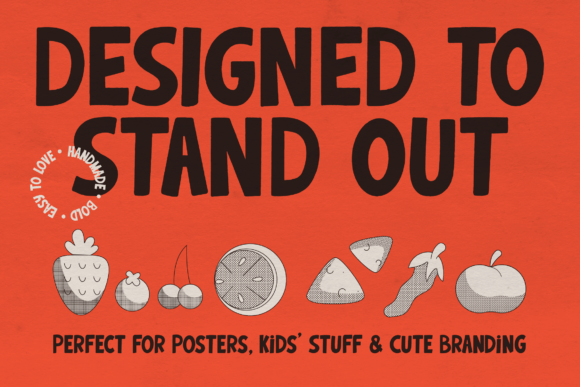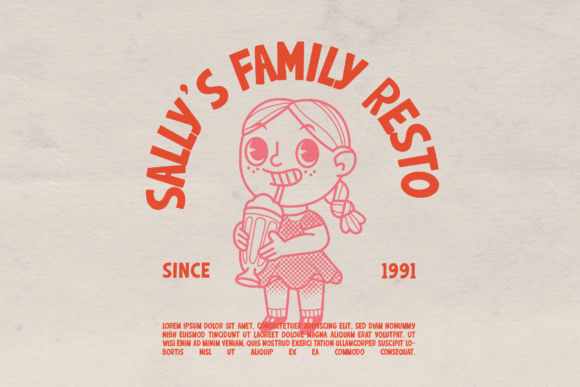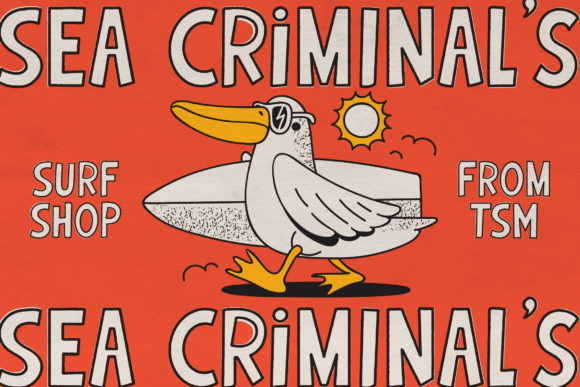
Unleashing Creativity with Samill Gufron Font
Have you ever stumbled upon a design that instantly sparks an idea and sets your creative juices flowing? For many designers, that moment is what makes the job so rewarding. It’s the thrill of discovering a fresh resource that breathes new life into a project. And that’s exactly what the Samill Gufron Font does – it injects pure graphic energy into any design, making it a valuable addition to any creative project.
With its bold, energetic hand-drawn display style, the Samill Gufron Font is perfect for designers seeking a high-quality, free download that can elevate their designs. Whether you’re working on a children’s product, vibrant poster, or casual branding, this all-caps typeface is sure to grab attention and communicate a playful, graphic punch.
Key Features of Samill Gufron Font
- High-quality design for creative projects, making it an excellent free download for designers.
- Transparent background, allowing for seamless integration with various design elements.
- Designed to be versatile, the Samill Gufron Font is suitable for a wide range of creative projects, from branding to typography.
- Features a clean and modern aesthetic, perfect for designers seeking a high-quality design resource.
Honest Review: Samill Gufron Font
I recently stumbled upon the Samill Gufron Font and was excited to try it out for a creative project. Overall, I was pleased with its performance.
Here are some things that worked well for me:
- ✨ The font is a high-quality download, perfect for use in professional designs.
- ✨ The transparent background makes it easy to layer over other elements in my design.
- ⚠️ The font is a bit limited in terms of style options, which might not be ideal for designers looking for more customization.
- ⚠️ The font might not be the best choice for complex designs, as it can be prone to readability issues at smaller font sizes.
Overall, I would say that the Samill Gufron Font is a solid choice for designers looking for a free, high-quality font for their creative projects. While it has some limitations, it’s a great resource to have in your toolkit.
Tips for Getting the Most Out of Samill Gufron Font
Experiment with different font sizes, colors, and styles to achieve the desired look. You can also combine the Samill Gufron Font with other fonts to create a unique and creative design.
The Samill Gufron Font is ideal for various creative projects such as branding, marketing materials, and social media graphics. You can also use it for personal projects like blog posts, newsletters, and presentations.